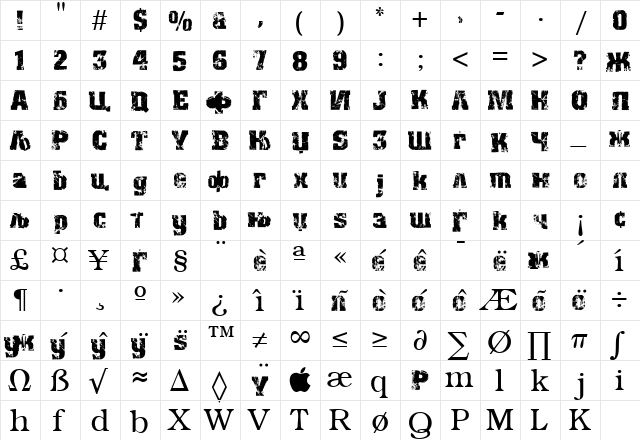
X_Distress Black
Design Context for X_Distress Typeface
X_Distress trades polish for personality, using distressed and eroded forms to bring grit and attitude to creative work.
Suited to punk-influenced zines, underground music branding, streetwear, and raw, anti-corporate design.
Pro Tip: Pair X_Distress with intentionally raw or lo-fi design elements. Fighting against it with overly polished surroundings will undermine its personality.